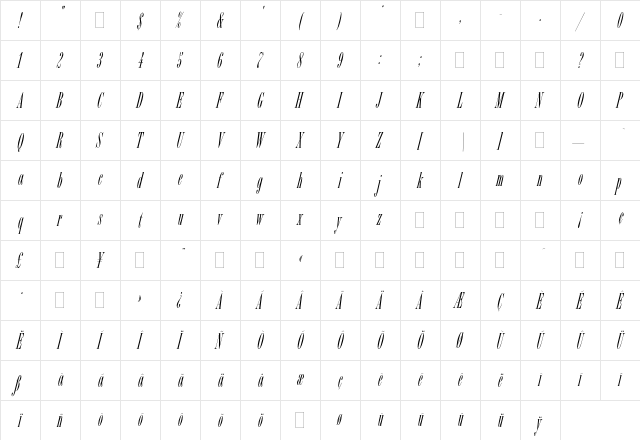
Bordeaux Italic Plain
Design Context for Bordeaux Italic Typeface
Bordeaux Italic takes a measured approach to typography — its balanced proportions and neutral character make it a reliable workhorse for both digital and print work. Its italic angle brings a sense of urgency and motion to the letterforms.
Pro Tip: Try Bordeaux Italic for annotation and caption copy alongside an upright companion — the contrast in angle creates a dynamic but ordered typographic system.